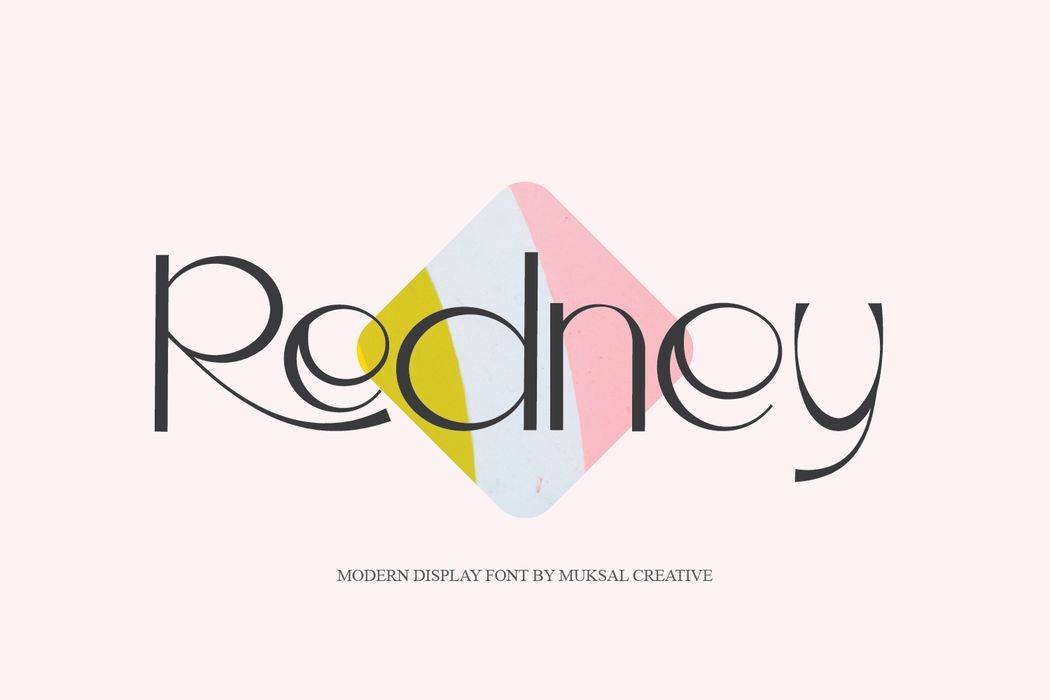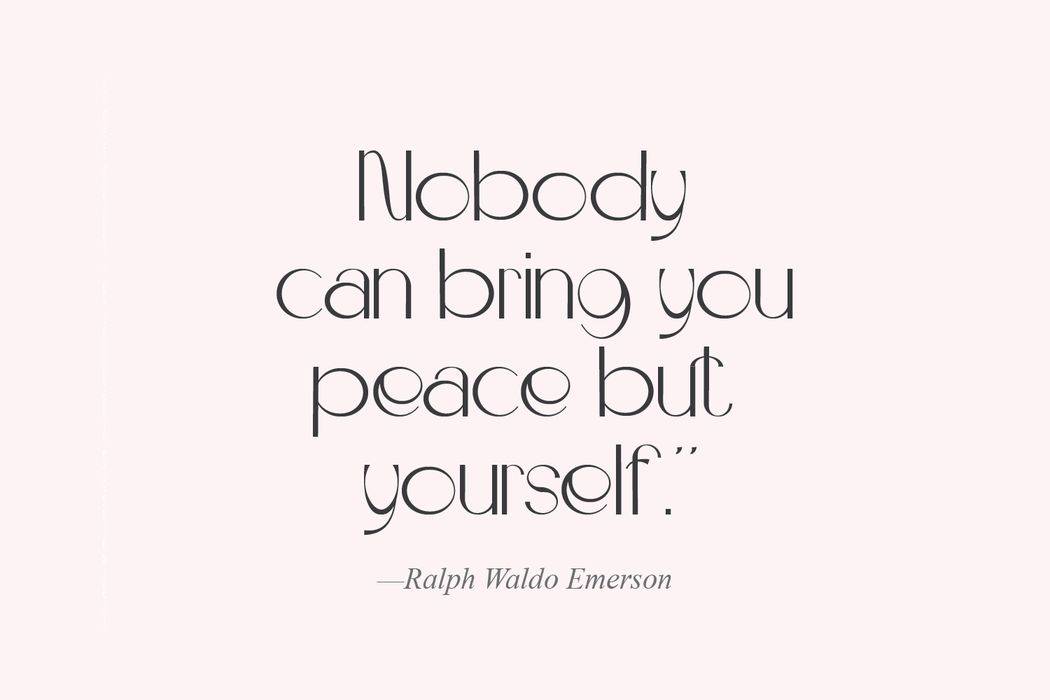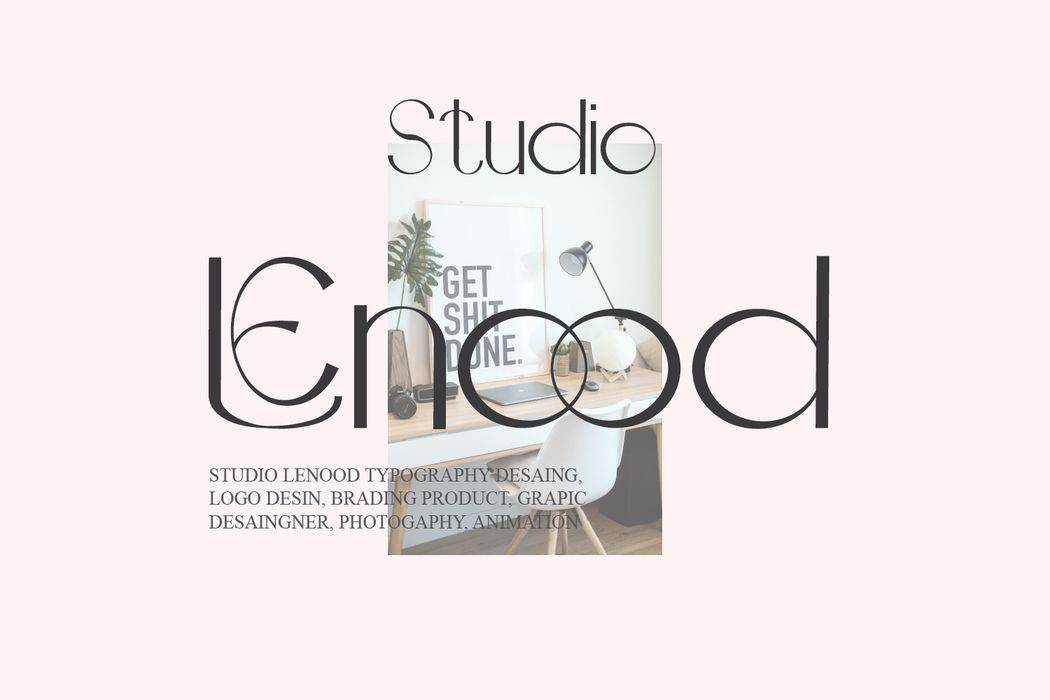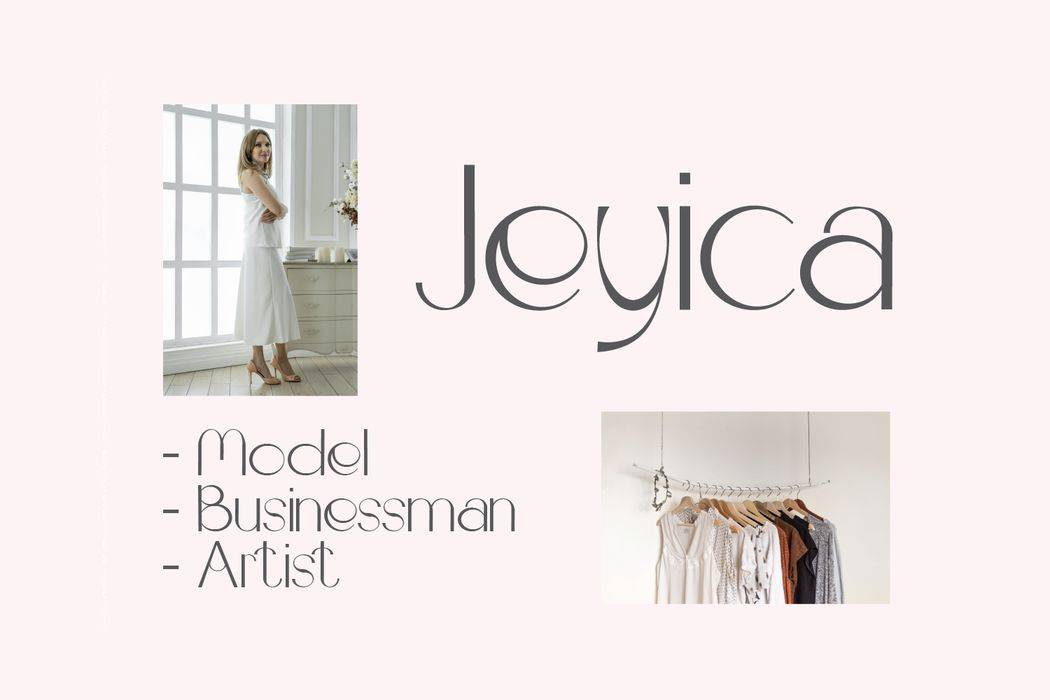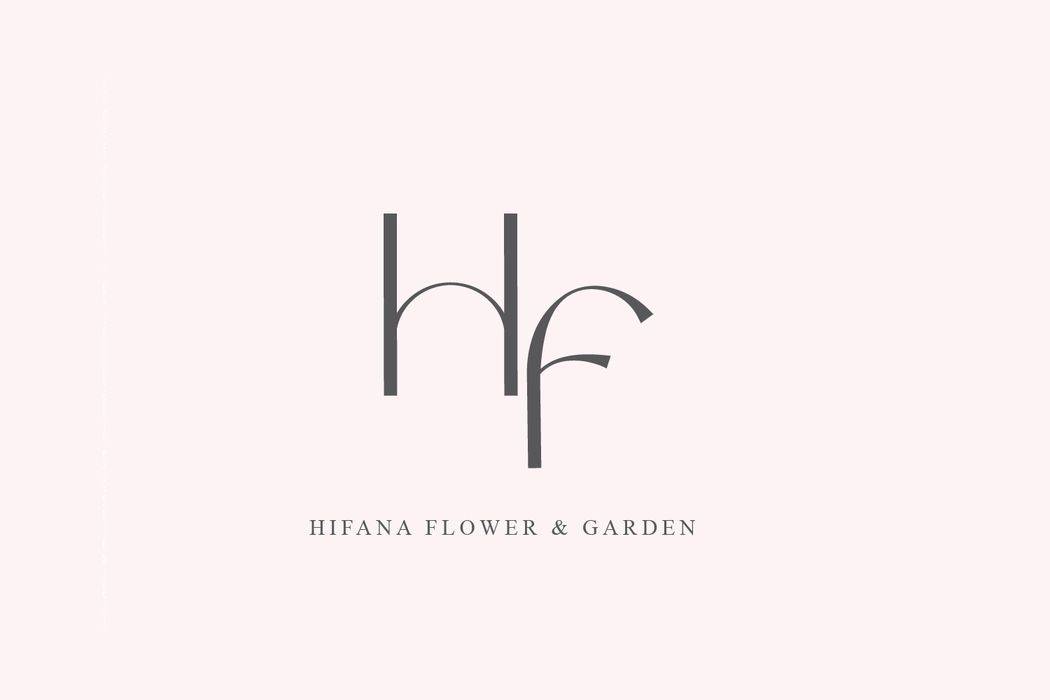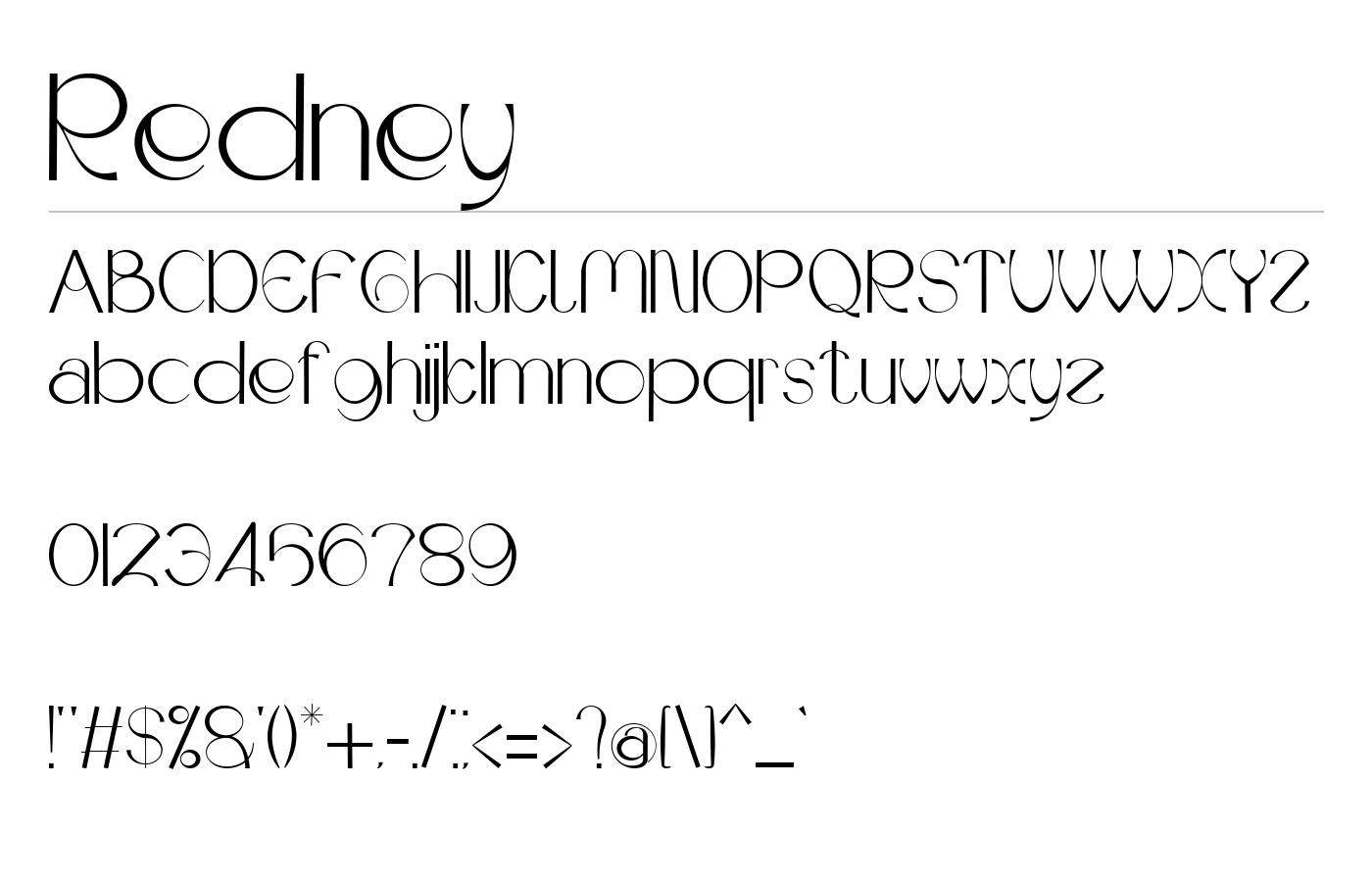
Redney is a delicate, modern sans serif font with a highly stylized and artistic flair, featuring ultra-thin strokes and unique, whimsical letterforms that blend geometric shapes with subtle curves. Its elegant, airy design makes it perfect for creative branding, fashion, and editorial projects where a light, sophisticated, and distinctive voice is desired. This font shines best in headlines and logos, adding a touch of refined artistry without overwhelming the design.
Redney Font
About Redney Font
| Font family | Redney Font |
| Designer | Muksal Craeative. 2021 |